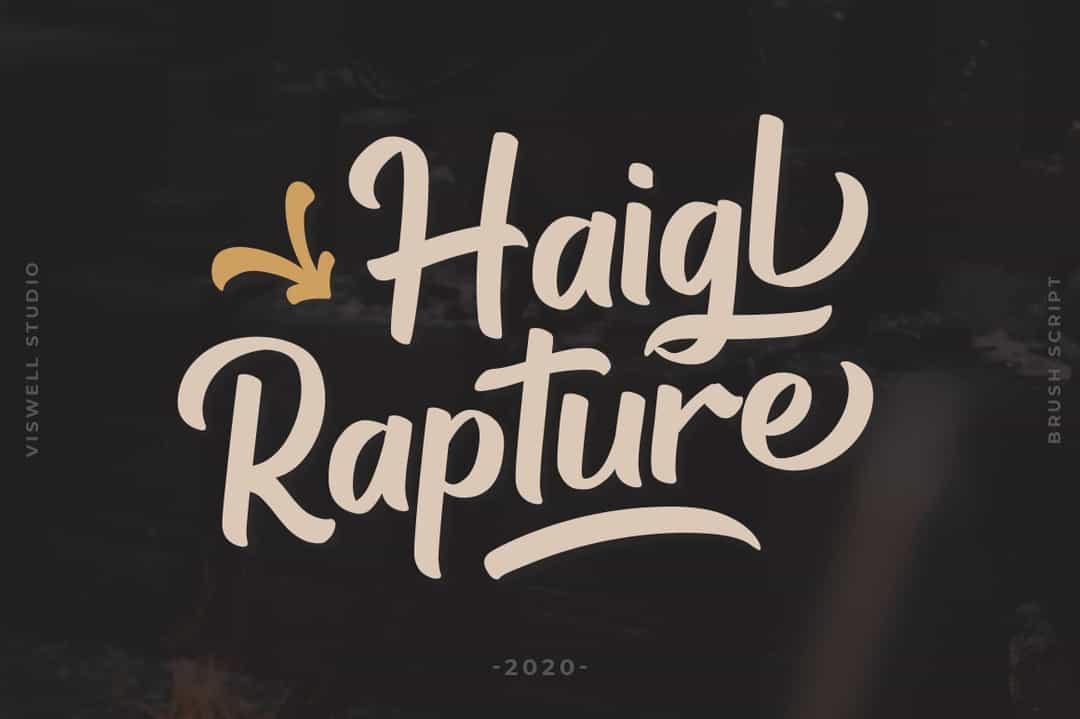
Currently, Haigl Rapture font model is available for you! The script is a combination of the fantasy style and ink written by hand. It is developed and posted by Agamous. This font type is a cursive handwritten font that has a beautiful design suitable for all your projects.